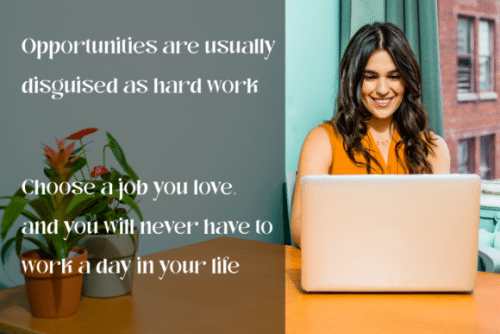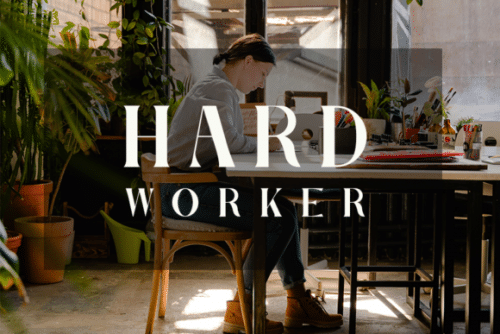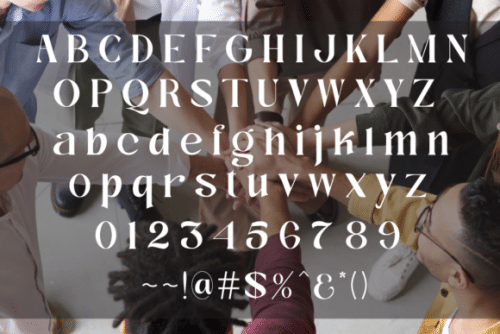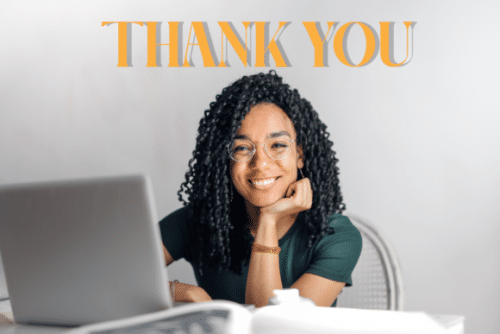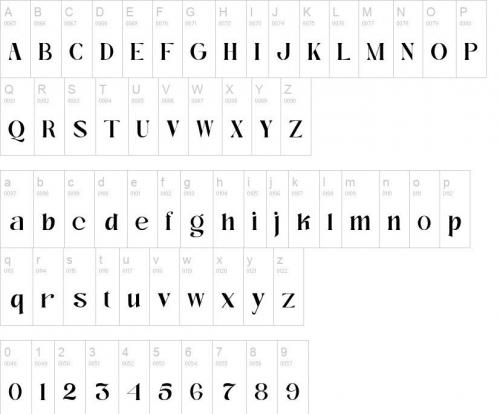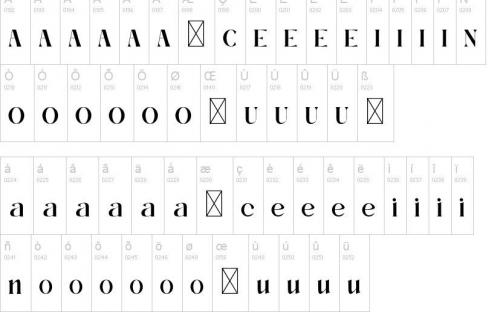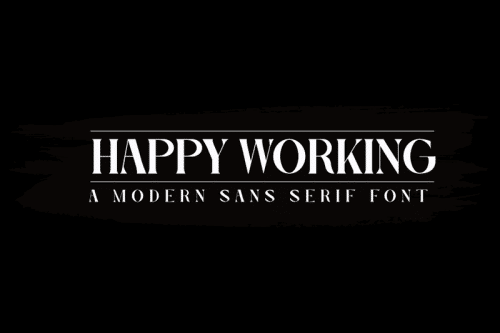
Happy Working is a bold and neat serif font. It can easily be matched to an incredibly large set of projects, so add it to your creative ideas and notice how it makes them stand out!
- Designer: Invitara